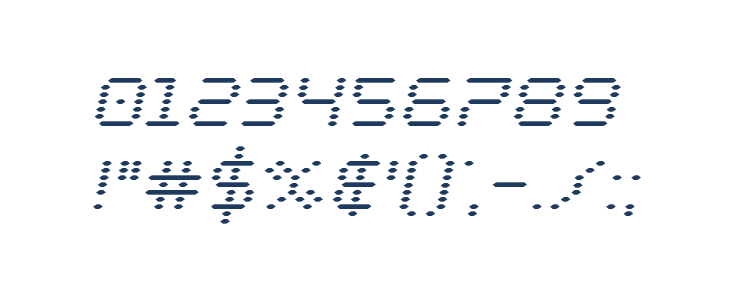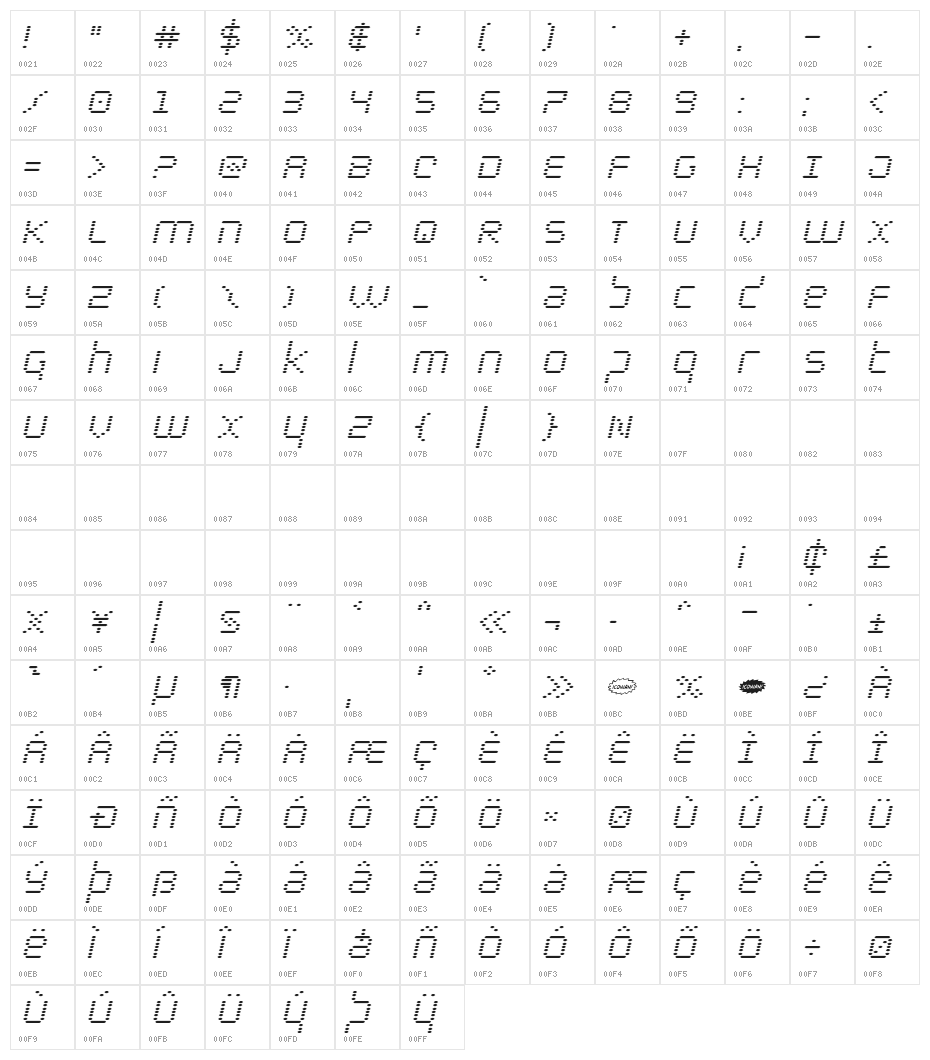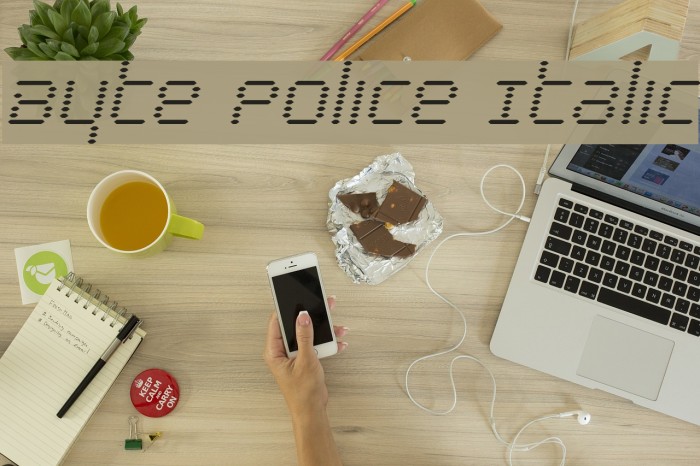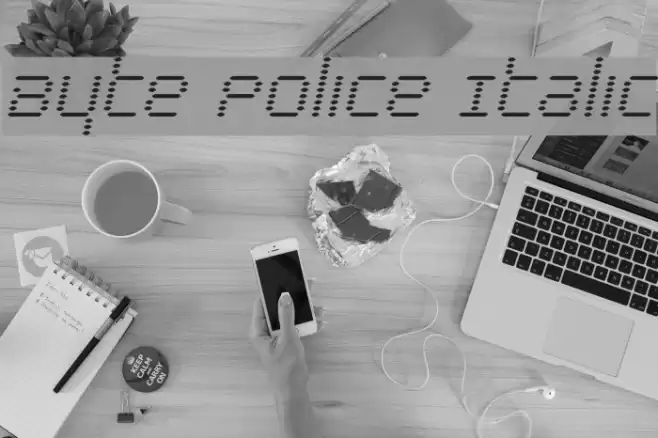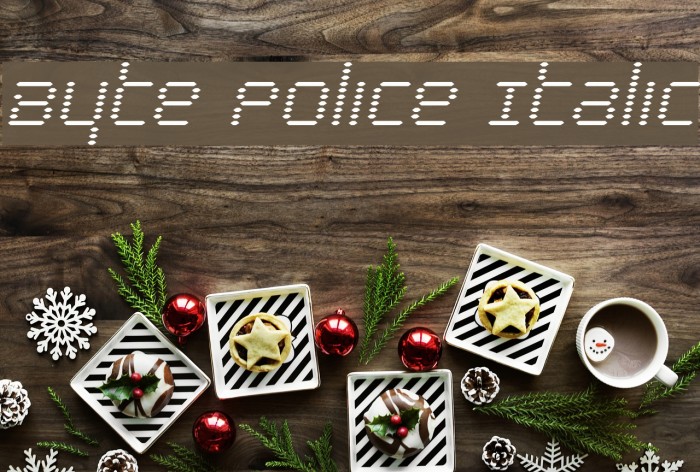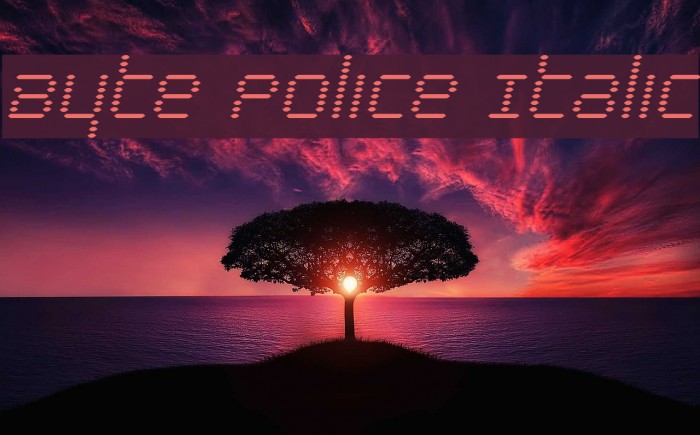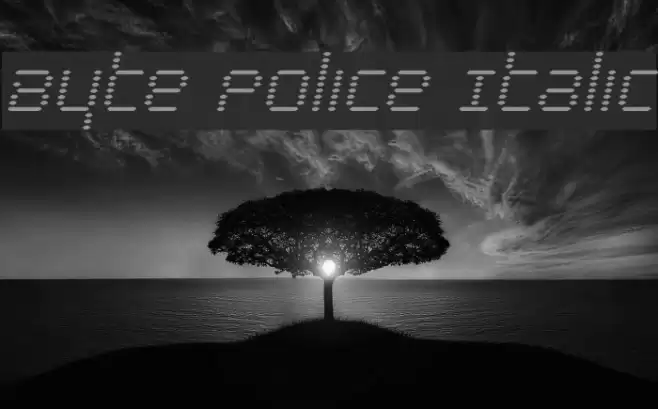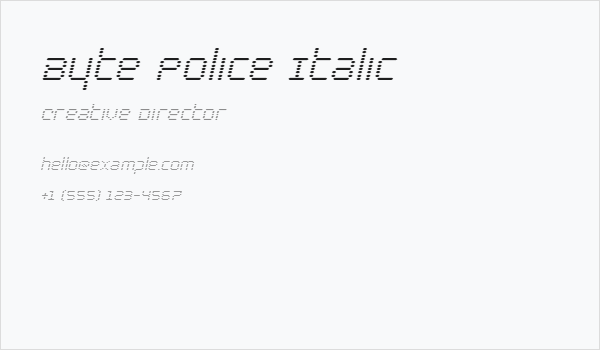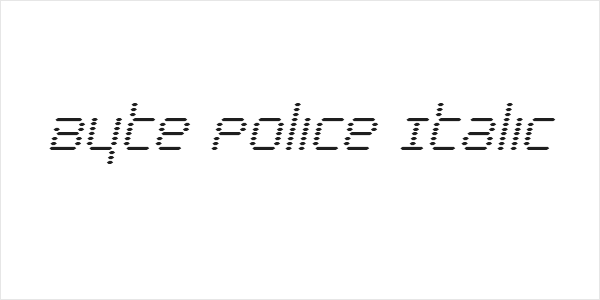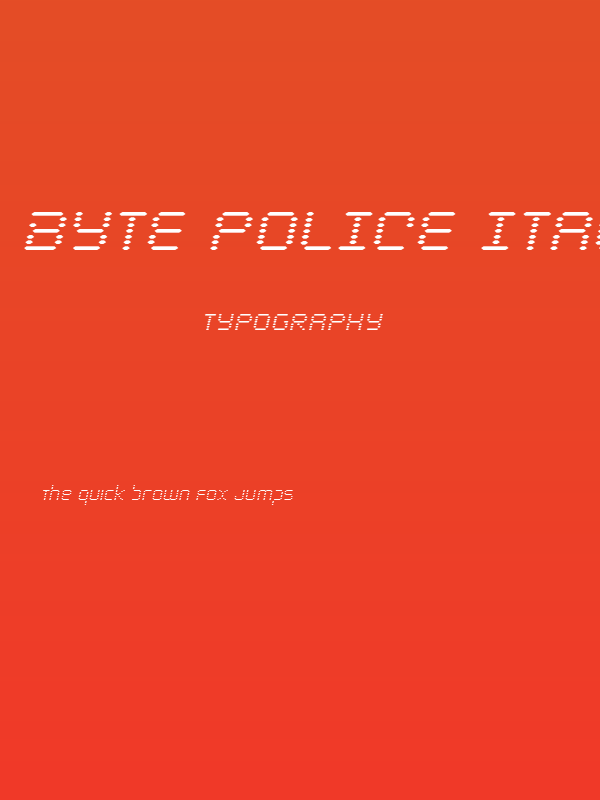
Byte Police Italic Font
Byte Police Italic Description
This font features a unique dotted design that mimics the appearance of digital or electronic displays. Each character is composed of small, evenly spaced dots, creating a futuristic and tech-inspired look. The font maintains a consistent structure across uppercase and lowercase letters, as well as numbers and special characters. Its italic style adds a dynamic and forward-leaning aspect, enhancing its modern appeal. The overall design is clean and minimalistic, making it suitable for projects that require a digital or high-tech aesthetic.
| Use Case | Logos, Headlines, Digital displays |
| Proposed Projects | Ideal for digital interfaces, tech-themed posters, futuristic branding, and electronic display simulations. |